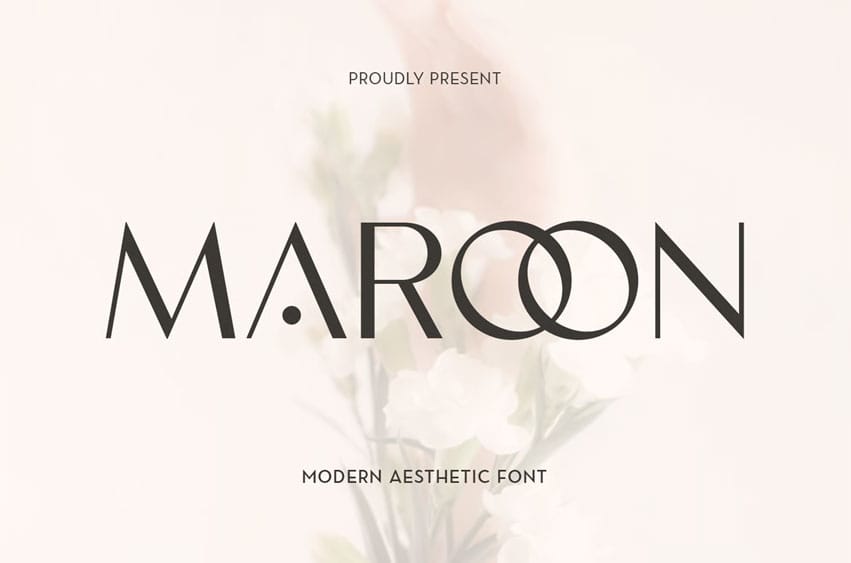
Maroon Font introduces a luxurious typographic aesthetic crafted specifically for beauty branding and premium visual identities. Its elegant strokes and refined structure create a polished silhouette, delivering a sophisticated presence in any design.
Featuring graceful curves, stylish contrasts, and carefully shaped details, Maroon blends modern elegance with timeless luxury. The result is a font that stands out effortlessly in upscale compositions and high-end branding work.
A selection of unique alternates and smooth ligatures enhances the versatility of Maroon, allowing seamless customization for distinctive logos, refined packaging, and expressive editorial layouts. Every character contributes to a cohesive and elevated visual flow.
Designed to shine in beauty logos, fashion labels, skincare packaging, magazines, and lifestyle branding, Maroon provides a clean yet glamorous look that aligns perfectly with premium aesthetics. Its luxurious feel ensures strong, memorable impressions across digital and print media.